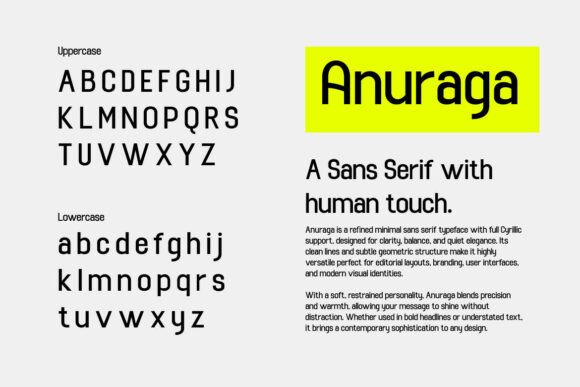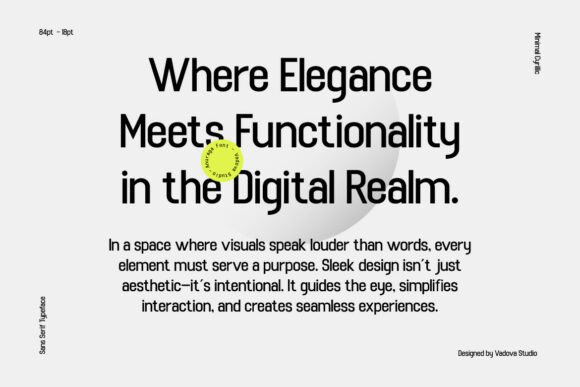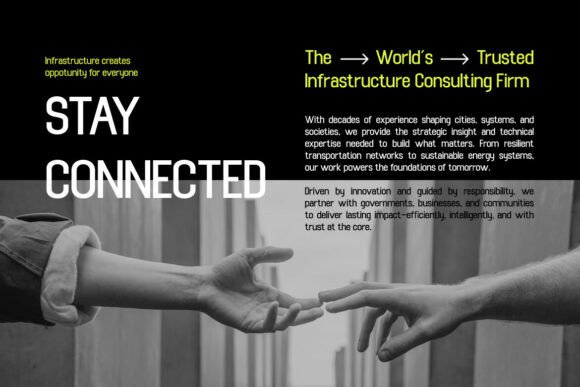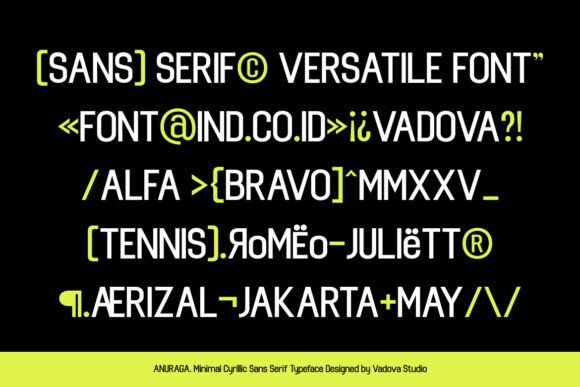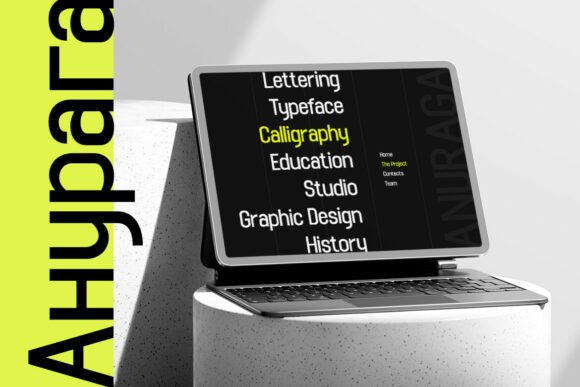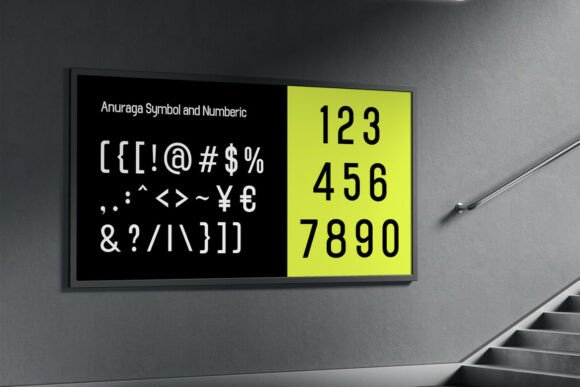
Introducing Anuraga Font: The Epitome of Modern Minimalism
In the realm of typography, few fonts have made a lasting impact like Anuraga, a sleek sans serif typeface that embodies the essence of modern minimalism. Designed with clean geometry and balanced proportions, Anuraga is the perfect representation of “Minimal Cyrillic” sophistication. This versatile font is engineered to provide exceptional legibility, making it an ideal choice for a wide range of applications, from global branding and UI/UX interfaces to tech startup identities and contemporary editorial layouts.
The Design Philosophy Behind Anuraga
Anuraga’s design is rooted in the principles of simplicity and functionality. Its high x-height and uniform stroke weight contribute to its exceptional legibility, ensuring that text remains clear and readable even at small sizes. This attention to detail makes Anuraga an excellent choice for digital interfaces, where legibility is paramount. The font’s clean lines and geometric shapes also lend themselves well to logo design, providing a crisp and modern aesthetic that can help brands stand out in a crowded market.
Seamless Support for Latin and Cyrillic Characters
One of Anuraga’s most significant advantages is its full support for both Latin and Cyrillic characters. This feature makes it an invaluable asset for designers working on international projects, as it provides a seamless and professional aesthetic that transcends linguistic and cultural boundaries. With Anuraga, designers can create cohesive brand identities that resonate with diverse audiences worldwide, without worrying about character limitations or font compatibility issues.
Applications for Anuraga Font
Anuraga’s versatility and legibility make it suitable for a wide range of applications, including:
• Global Branding: Anuraga’s modern and sleek design makes it an excellent choice for brands looking to establish a strong visual identity that resonates with a global audience.
• UI/UX Interfaces: The font’s exceptional legibility and clean lines make it perfect for digital interfaces, ensuring a seamless user experience across various devices and platforms.
• Tech Startup Identities: Anuraga’s cutting-edge aesthetic and minimalist design make it an ideal choice for tech startups looking to establish a strong brand presence.
• Contemporary Editorial Layouts: The font’s elegant and refined design makes it suitable for editorial layouts, providing a sophisticated and modern aesthetic that enhances the reading experience.
Why Choose Anuraga Font?
Anuraga offers a unique combination of style, legibility, and versatility, making it an attractive choice for designers and crafters. Here are some reasons why Anuraga stands out:
• Modern Aesthetic: Anuraga’s sleek and minimalist design ensures a modern aesthetic that is both visually appealing and timeless.
• Exceptional Legibility: The font’s high x-height and uniform stroke weight provide exceptional legibility, making it suitable for a wide range of applications.
• Seamless Character Support: Anuraga’s full support for Latin and Cyrillic characters makes it an invaluable asset for designers working on international projects.
• Versatility: The font’s versatility makes it suitable for various applications, from branding and UI/UX interfaces to editorial layouts and more.
Anuraga font is a masterpiece of modern typography, offering a unique blend of style, legibility, and versatility. Its clean geometry, balanced proportions, and exceptional legibility make it an ideal choice for designers and crafters looking to create stunning visual identities that resonate with a global audience. With its seamless support for Latin and Cyrillic characters, Anuraga is poised to become a go-to font for designers working on international projects. Whether you’re looking to create a strong brand presence, design intuitive digital interfaces, or craft elegant editorial layouts, Anuraga is the perfect choice.